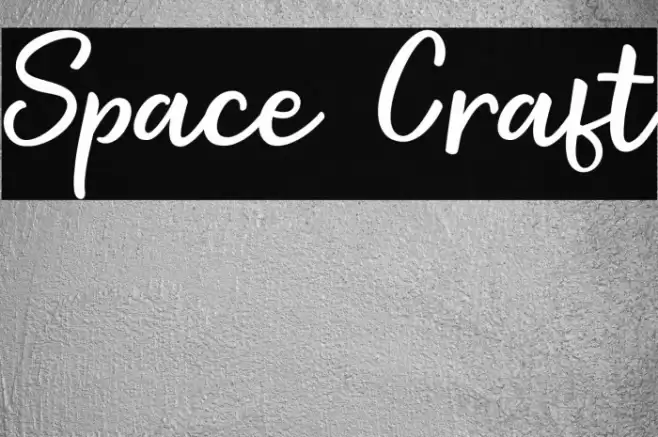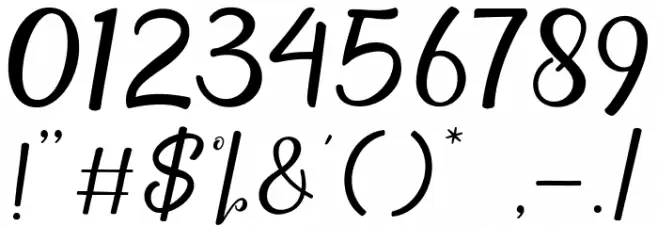
Space Craft Font
Space Craft Description
This font exudes a playful and energetic vibe, characterized by its flowing, cursive style. The uppercase letters are bold and slightly slanted, giving a sense of movement and dynamism. The lowercase letters maintain a consistent flow, with smooth curves and loops that enhance its handwritten feel. Numbers are clear and legible, matching the overall style with a slight slant. Special characters are well-integrated, maintaining the font's cohesive look. The overall appearance is both casual and stylish, making it suitable for a variety of creative applications.
A playful, cursive font with a dynamic and energetic style from Regular fonts.
- Font: Space Craft
- Proposed Projects: Ideal for greeting cards, invitations, personal branding, and creative projects that require a touch of elegance and playfulness.
- Use Case: Logos, Headlines, Invitations